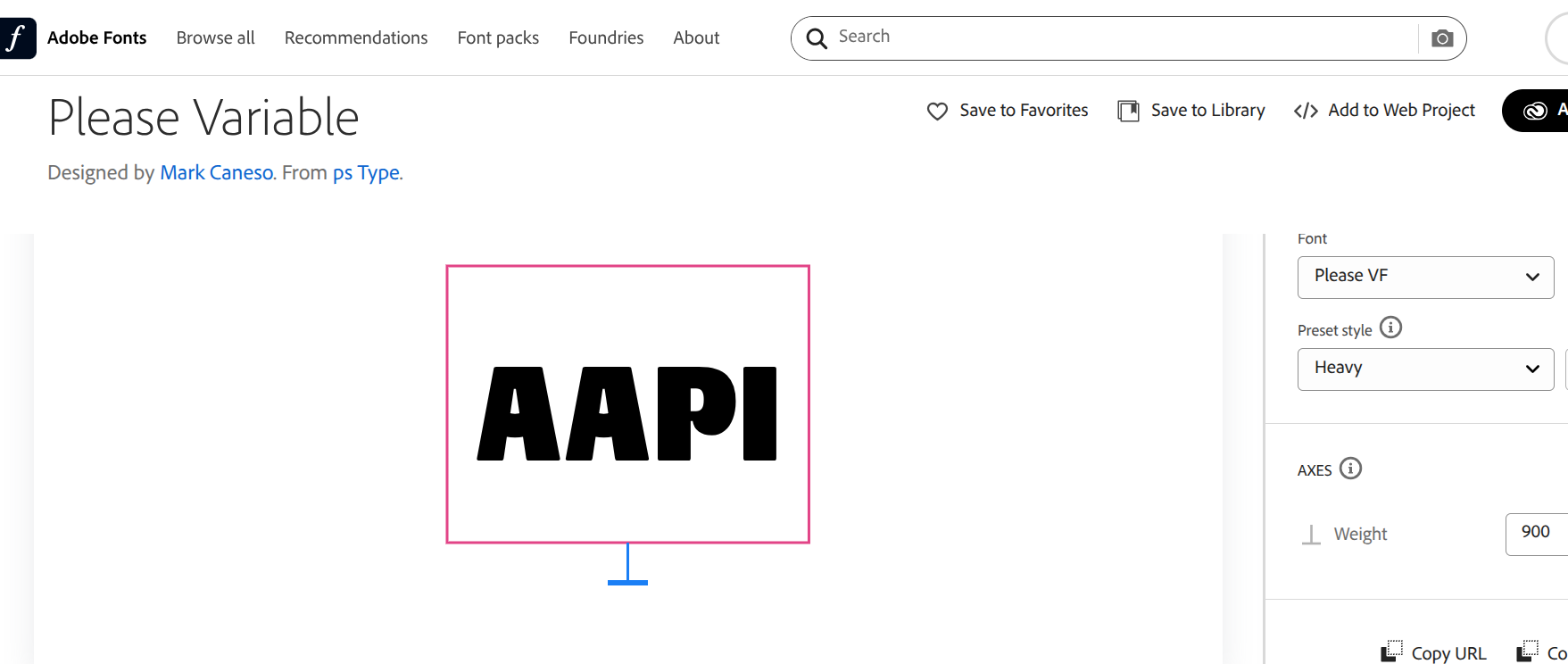
Can anyone tell me the name of this AAPI font? Thanks in advance.
This is the closest I can find. It may have been altered. That P is distinctive and doesn’t show up in any of my searches ![]()
btw .. finding fonts is going to be interesting from here on out. It’s always been challenging with people altering fonts, but now we have AI in the mix. That will really muck up the results ![]()
Possible the AA is from a different font - mixed fonts - I’ve seen the AA before but not sure where.
If you change it to Please Poster VF it looks like the right font.